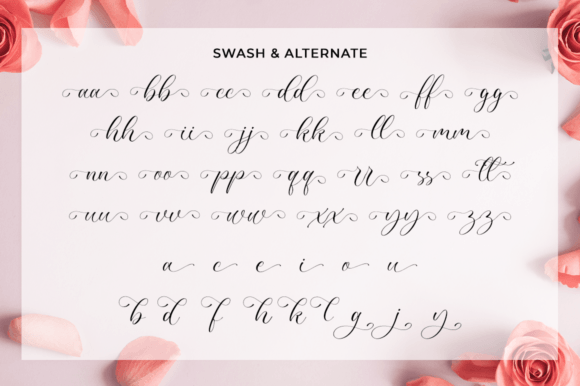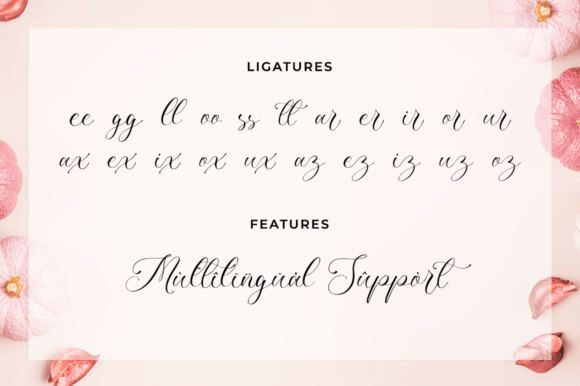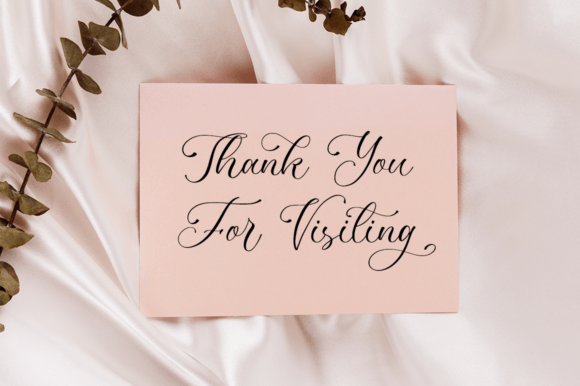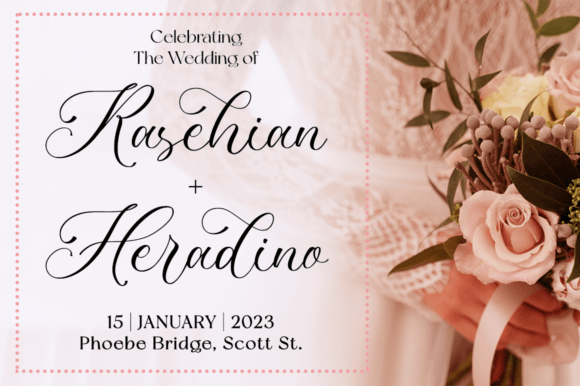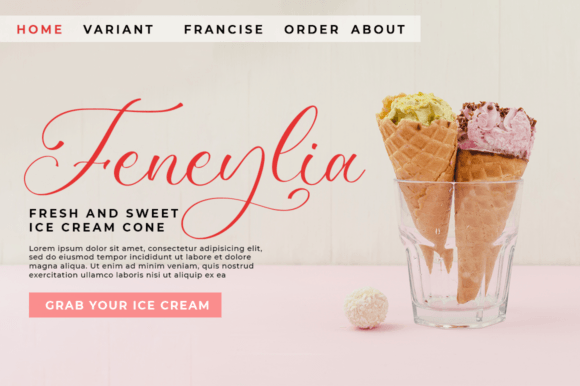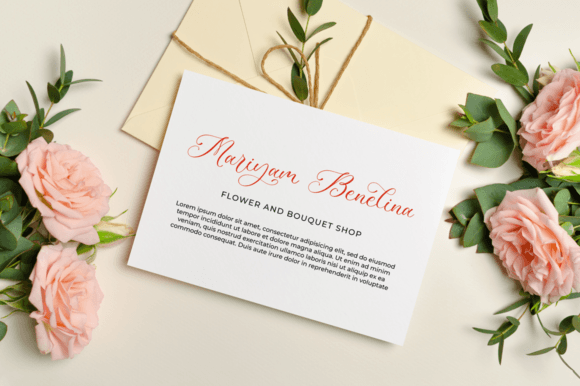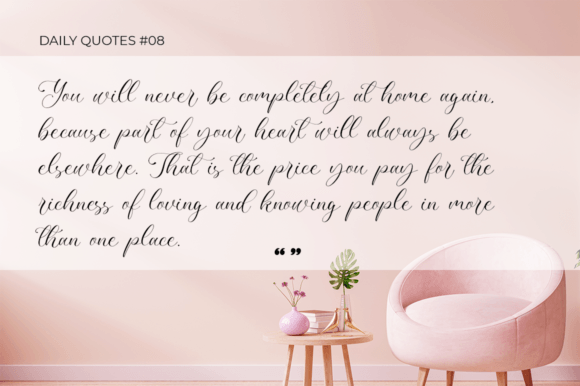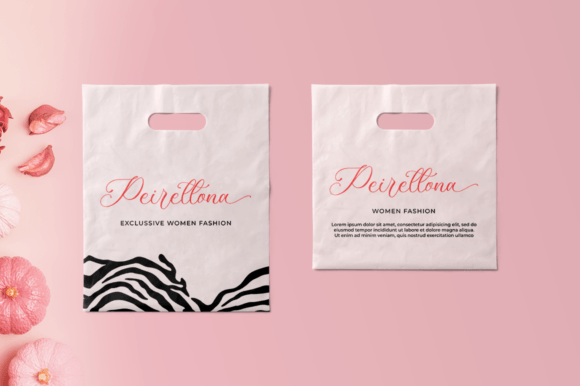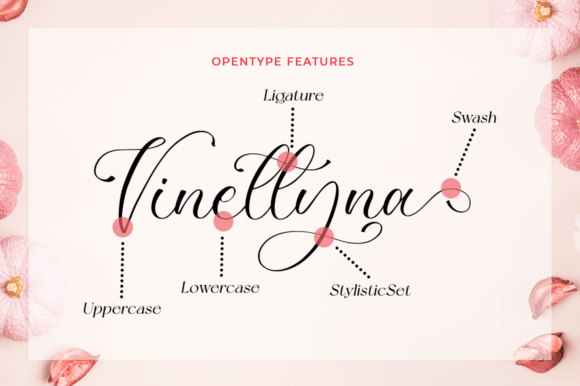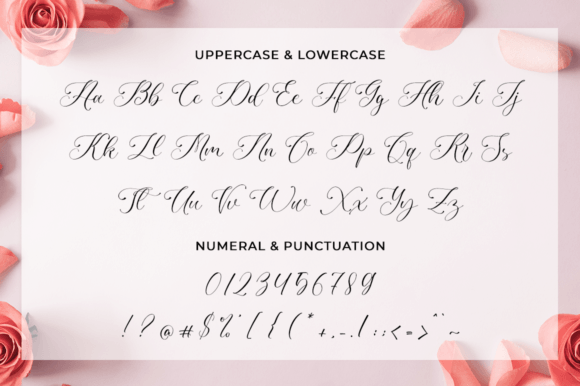
Magnificent Font
Luxury Handwritten Typeface for Elegant and High-End Designs
If you’re looking to add a sophisticated flair to your next project, Magnificent is here to shine. This luxury handwritten typeface blends soft curves with a refined aesthetic, making it perfect for creators who want elegance with a personal touch. From brand identities to wedding stationery, Magnificent offers timeless beauty in every letter.
Its smooth strokes and artistic flow turn even simple text into a high-end visual experience.
Discover Magnificent: Beautiful, Delicate, and Impactful
Magnificent lives up to its name — it’s visually impressive yet delicately styled. Its handwritten appearance brings warmth, while its luxury-inspired details convey class. As a result, this luxury handwritten typeface is ideal for both romantic and professional design projects.
Popular use cases include:
• Wedding invitations and save-the-dates
• Luxury product branding and packaging
• Thank you cards, greeting cards, and event flyers
• Quote art, Instagram posts, and Pinterest graphics
• Boutique logos and fashion branding
• Personalized gifts and DIY projects
Thanks to its graceful curves and modern flow, Magnificent complements both minimalist and ornate designs.
Why Designers Love Magnificent
Designers and creatives favor Magnificent for its unique blend of elegance and personality. Here’s what sets it apart:
• Handwritten strokes with a luxury feel
• Clear and legible at multiple sizes
• Elegant enough for wedding themes, yet bold enough for branding
This luxury handwritten typeface is versatile, expressive, and ready to make a visual statement.
Ideal for Creatives, Brands, and Personal Projects
Magnificent adds sophistication to any project. It’s especially suited for:
• Bridal studios and event planners
• Boutique product labels and logos
• Bloggers and social media influencers
• Stationery designers and Cricut enthusiasts
• Upscale business cards and personal branding
Because it feels both elegant and approachable, it resonates well across industries and audiences.
Magnificent is more than just a font — it’s a visual expression of beauty, grace, and creativity. With its delicate lines and luxurious style, this luxury handwritten typeface adds refinement and emotional depth to your work. Whether you’re creating for a client or yourself, Magnificent will elevate your design every time.